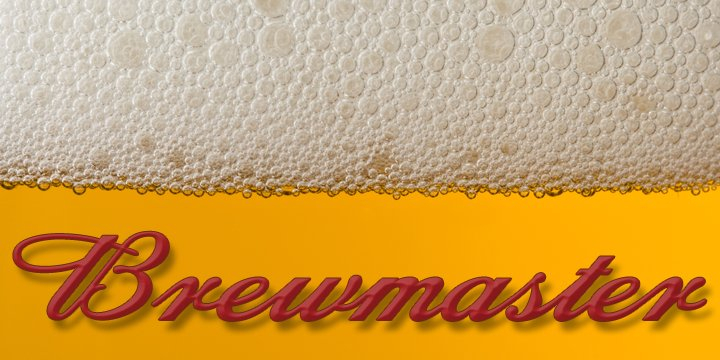
Brewmaster is a brush script font published by FontMesa.
Brewmaster was inspired by the Budweiser logo from the late 1800s and its updated revival in 2000, this style of script was very popular in the 1800s and could be found in use on old billeads and letterheads.